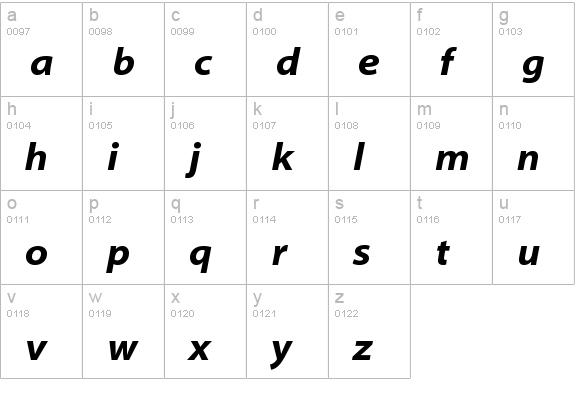
Adobe Corporate ID Myriad Bold Italic is a strong, high-contrast, italic variant in the Adobe typeface family \xE2\x80\x94 well suited to headlines, attention-grabbing titles, and strong calls-to-action.
Adobe Corporate ID Myriad Bold Italic is a versatile and modern font that exudes professionalism and sophistication. Its bold and italic style adds a touch of elegance to any design project, making it perfect for corporate branding, marketing materials, and editorial content. With its clean lines and sleek appearance, this font conveys a sense of authority and credibility. The best part? Adobe Corporate ID Myriad Bold Italic is available for free download at FontsMarket.com. Now you can elevate your designs with this premium font without having to spend a dime. Whether you're working on a business presentation, a website, or a print advertisement, this font will help you make a lasting impression and stand out from the crowd. Don't miss out on the opportunity to enhance your projects with the Adobe Corporate ID Myriad Bold Italic font. Download it for free today and take your designs to the next level.